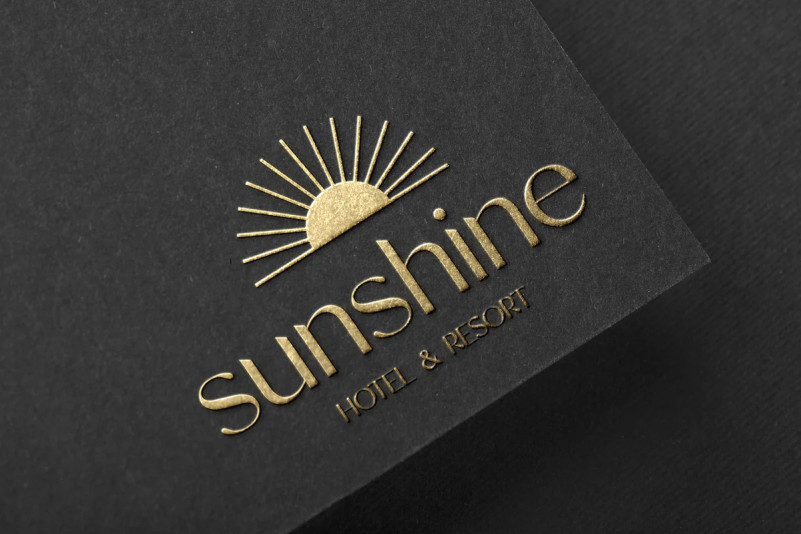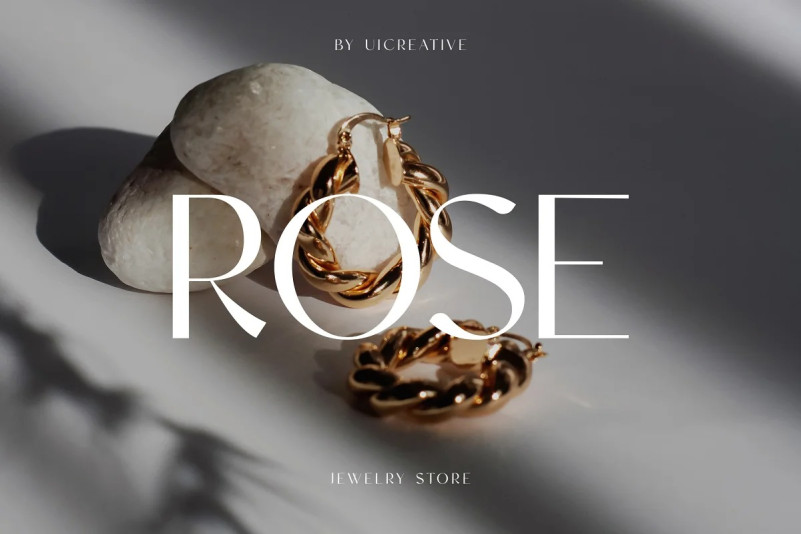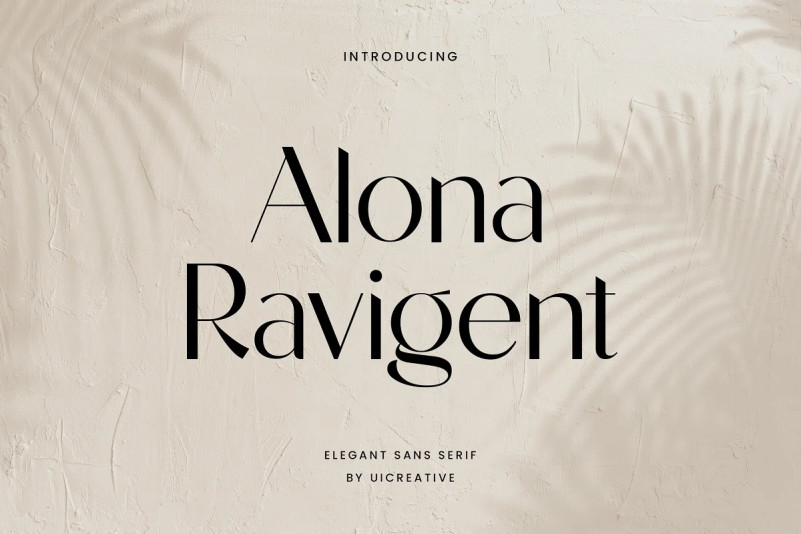
Alona Ravigent Font
Alona Ravigent Font – Elegant Sans Serif Font. Elegant Sans Serif font that feels beautiful classy, elegant, and modern. This font is ideally suited for a wide variety of projects, such as signature, stationery, logo, wedding, typography quotes, magazine or book covers, website headers, clothing, branding, packaging design, and more. Also, fashion-related branding or editorial design displays both masculine and feminine qualities.